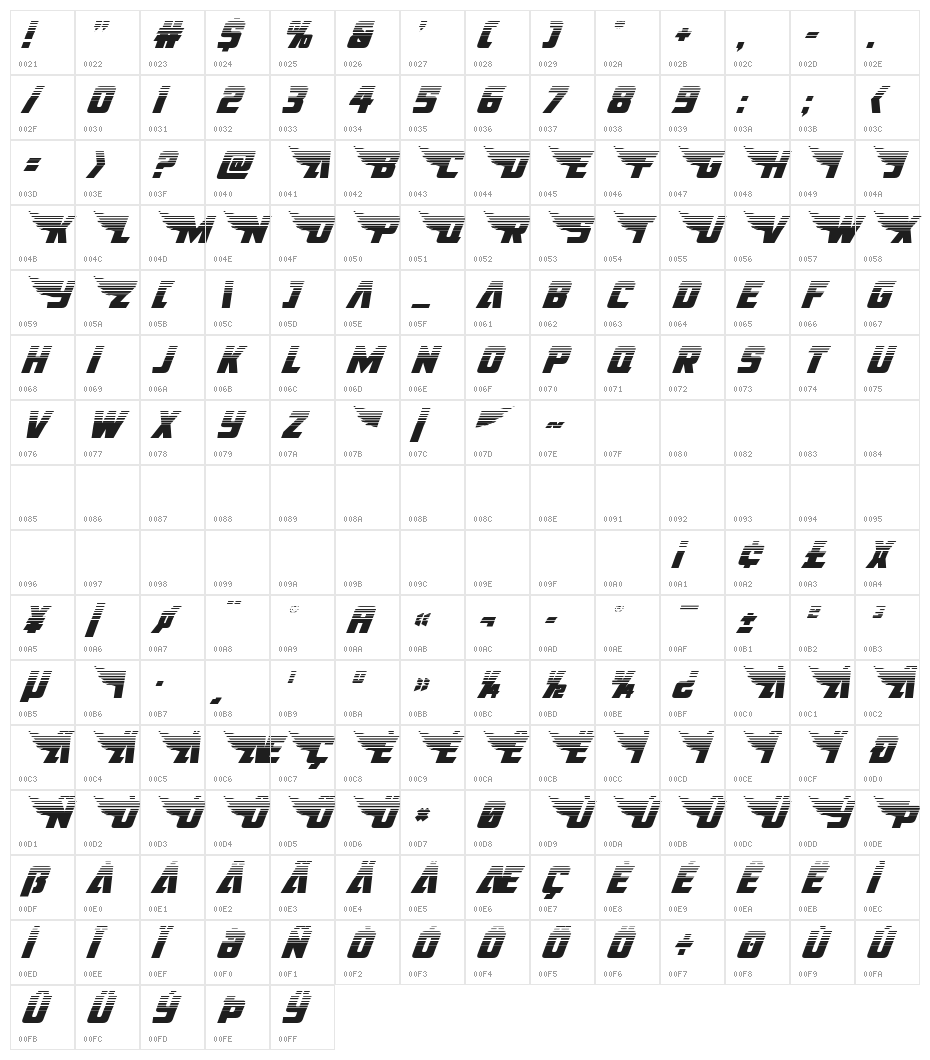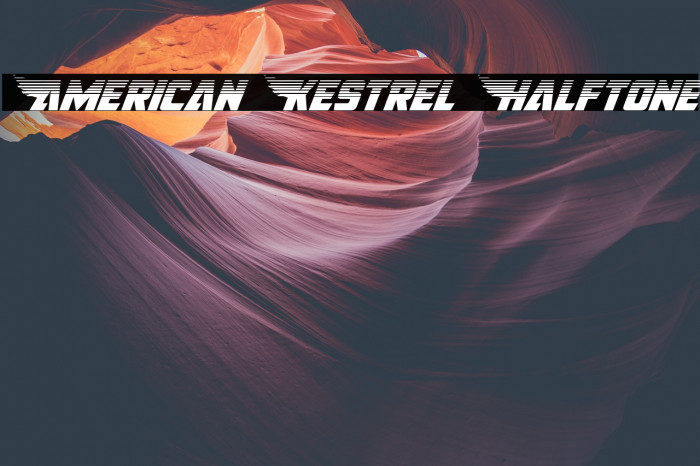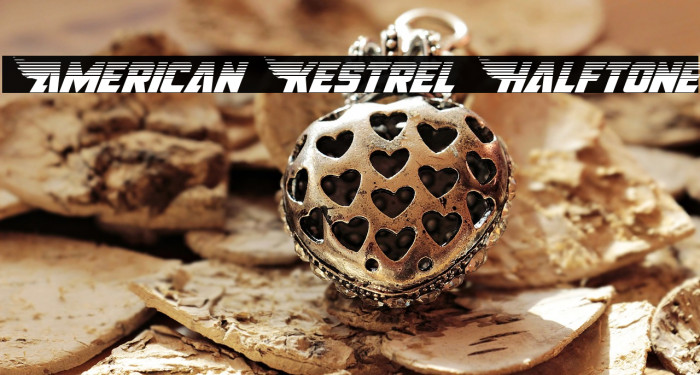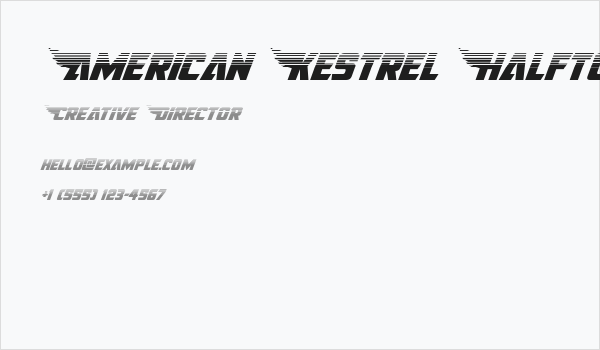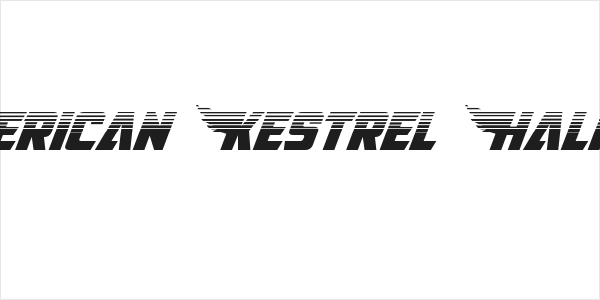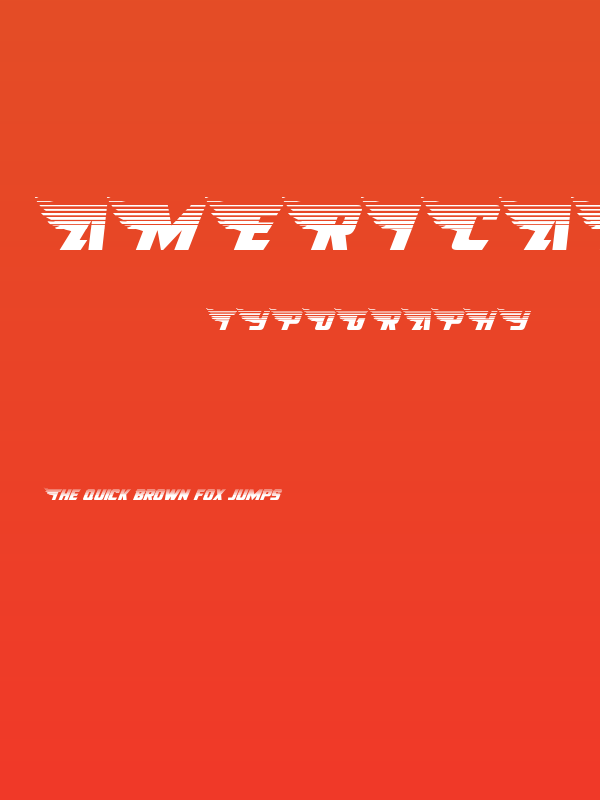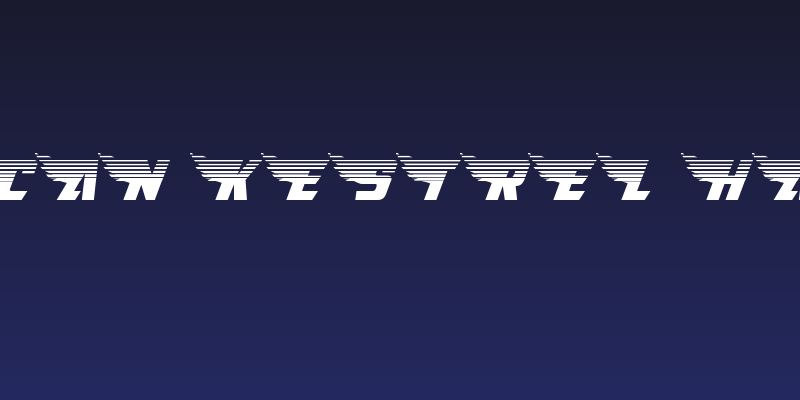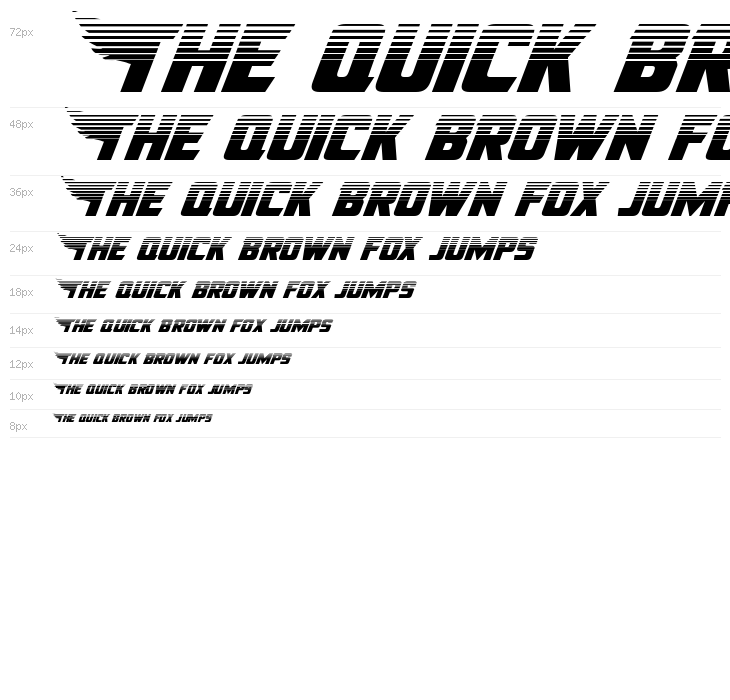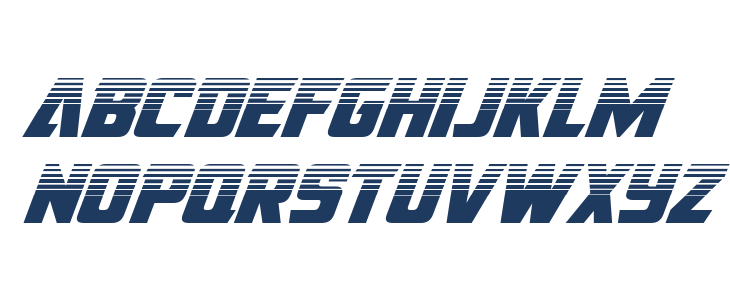
American Kestrel Halftone Font
American Kestrel Halftone Description
This font features a bold and dynamic design with a halftone effect that creates a sense of motion and energy. The characters are wide and have a distinct slanted orientation, giving them a forward-leaning appearance. The upper portion of each character is adorned with horizontal lines that gradually fade, enhancing the halftone effect. This unique style makes it stand out, suitable for projects that require a modern and edgy look. The font is particularly effective in capturing attention and conveying a sense of speed and movement.